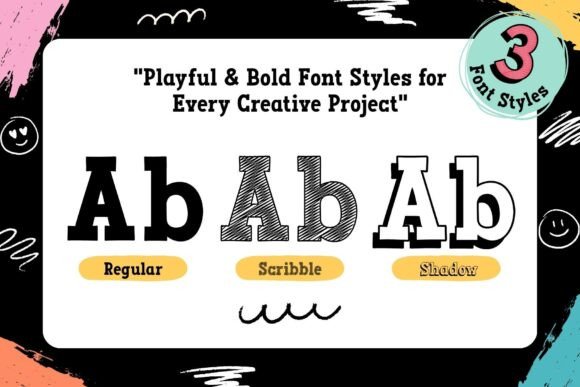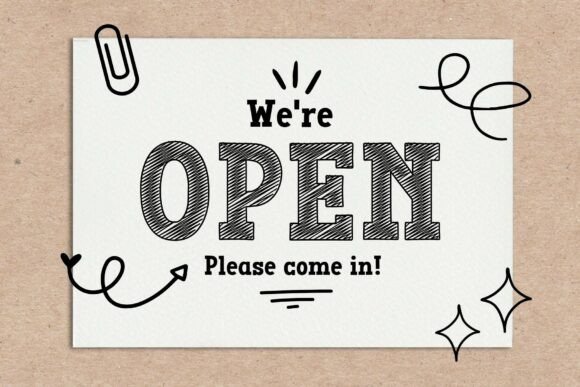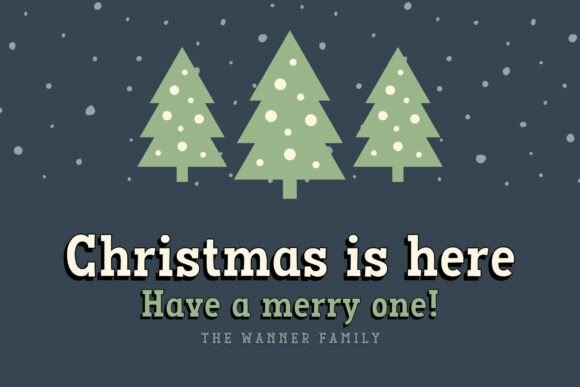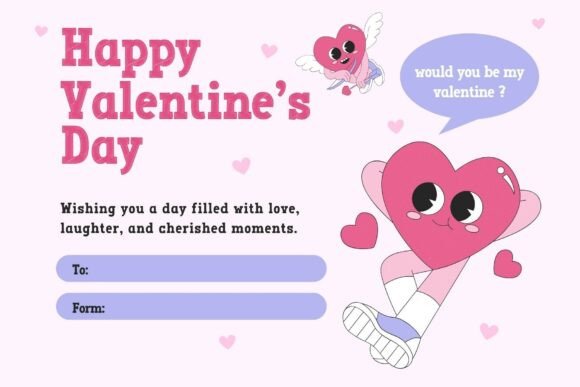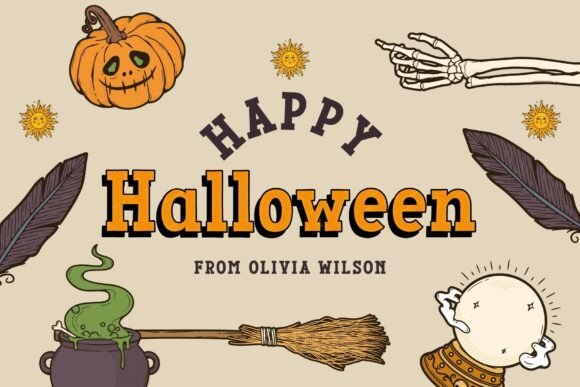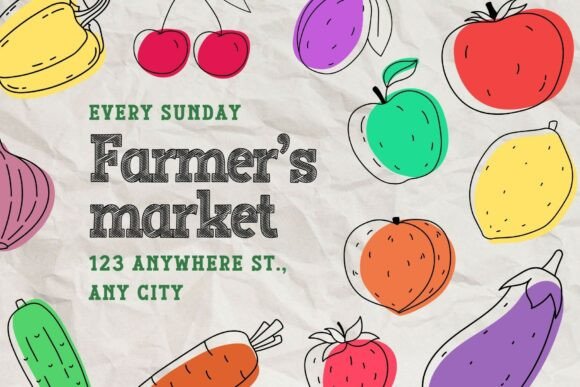
Introduction to Fox Kiddy Font
Remember that moment when you stumbled upon the perfect font for a project, and it instantly transformed your design into something magical? For many designers, this is a moment of pure joy. And for those working on kids-themed projects, that moment often comes when they discover the Fox Kiddy Font. This playful and bold display font is specifically designed to bring creativity and cheerfulness to any design.
With its unique blend of chunky letters, hand-drawn charm, and fun details, Fox Kiddy Font is a game-changer for designers seeking high-quality design resources. The font family includes three distinct styles – Regular, Scribble, and Shadow – allowing designers to mix and match to achieve the perfect look for their creative project. Whether you’re working on a children’s book, poster, or playful branding, Fox Kiddy Font is sure to bring smiles and energy to your work.
Key Features of Fox Kiddy Font
- High-quality, hand-drawn design for a unique and creative project
- Unique characteristics: playful, childlike, and whimsical style, perfect for illustrations and children’s materials
- Perfect for designers working on a creative project, such as children’s books, magazines, and advertising materials
Honest Review: Fox Kiddy Font
I recently stumbled upon the Fox Kiddy Font, and I must say it’s a lovely addition to any creative project. The font is part of a free download collection that offers high quality design resources. As a designer, I appreciate the effort put into creating a unique and playful font.
- ✨ The Fox Kiddy Font has a transparent background, making it easy to layer with other design elements.
- ✨ The font’s playful and childlike feel makes it perfect for projects that require a whimsical touch.
- ✨ The font is highly customizable, allowing designers to adjust the size and style to suit their needs.
However, I did encounter a few limitations ⚠️. The font’s character set is somewhat limited, which may be a concern for designers working on projects that require a wide range of characters.
Overall, I’m impressed with the Fox Kiddy Font. It’s a great resource for designers looking to add a touch of playfulness to their projects. While it may have some limitations, the font’s unique feel and high quality make it a valuable addition to any design collection.
Tips for Getting the Most Out of Fox Kiddy Font
Here are a few tips for getting the most out of the Fox Kiddy Font:
- Use the font in combination with other design elements, such as images and graphics, to add visual interest.
- Take advantage of the font’s transparent background feature to create custom designs with a seamless look.
Common Use Cases for Fox Kiddy Font
The Fox Kiddy Font is a versatile design resource that can be used in a variety of creative projects, including:
- Select a bold color scheme that complements the woodland theme.
- Combine the font with illustrations of woodland creatures, such as foxes, rabbits, and squirrels.
- Use a high-quality image of a chalkboard as the background to add a tactile feel.
Is the Fox Kiddy Font suitable for use on a transparent background?
Yes, the Fox Kiddy Font is designed to work well on a transparent background. The font’s design and transparent background make it ideal for use in digital art, graphic design, and other creative projects where a transparent background is required.